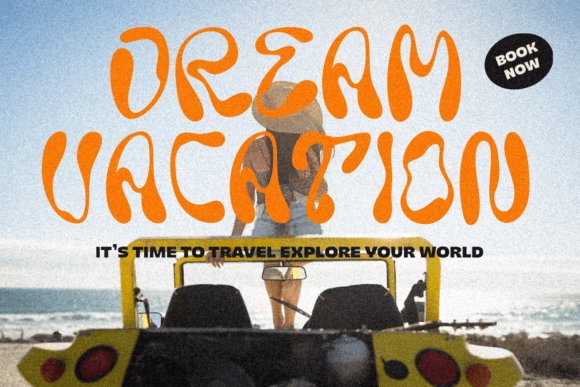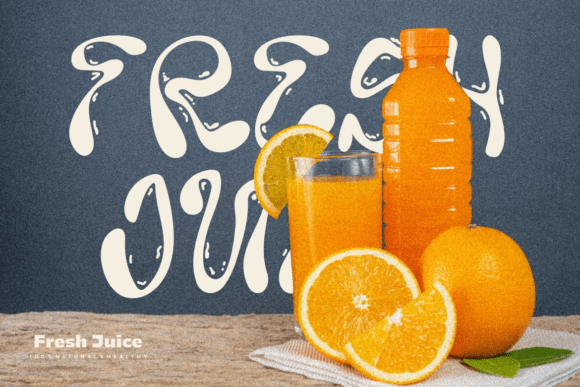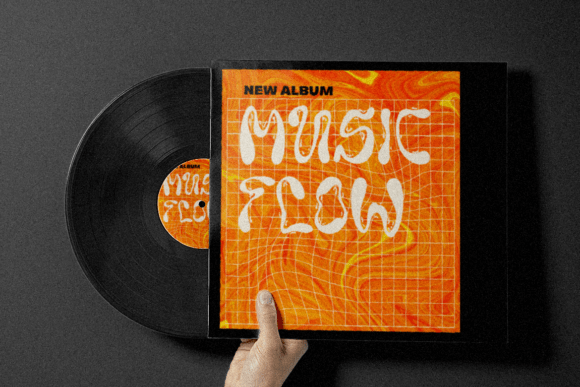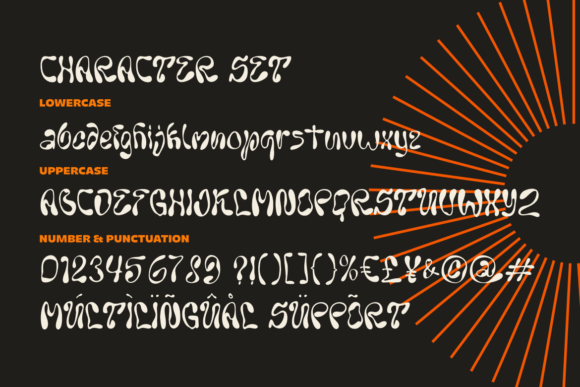
Introduction to Liquid Wave Font
Have you ever been working on a creative project, staring at a blank canvas, and suddenly, a spark of inspiration hits you? Maybe it’s a bold, eye-catching color combination or a striking font that sets the tone for your entire design. For many designers, that spark of inspiration is often found in the perfect font – one that captures the essence of their creative vision and communicates their message with impact. For those seeking a font that embodies movement, fluidity, and energy, the Liquid Wave Font is the perfect solution.
With its unique blend of retro-inspired style and modern Y2K vibe, the Liquid Wave Font is a valuable resource for designers looking to add a touch of bold personality to their work. Whether you’re crafting logos, posters, magazine covers, or book covers, this font excels at grabbing attention and leaving a lasting impression. Its high-quality design and versatility make it a must-have for any design project, and with its free download option, it’s an accessible resource for creatives of all levels.
Key Features of Liquid Wave Font
- Unique, hand-drawn design for a creative project, offering a high level of expressiveness.
- Perfect for designers looking for a high-quality, unique font to enhance their designs and add a touch of elegance.
Honest Review: Liquid Wave Font
I recently stumbled upon the Liquid Wave Font, and I must say it’s a great addition to any creative project. As a designer, I appreciate high-quality design resources that can elevate the visual appeal of a project.
- High quality: The font is crisp and clear, making it perfect for various design applications.
- Limited font styles: The font comes in a single style, which might limit its versatility in certain design projects.
Overall, the Liquid Wave Font is a great resource for designers who need a high-quality font for small projects or personal use. While it has some limitations, its unique design and transparent background make it a valuable addition to any design arsenal.
Use the font in conjunction with a transparent background for a unique design effect. Experiment with different font sizes and colors to create a visually appealing design.
The Liquid Wave Font is perfect for creative projects, such as infographics, social media graphics, or presentations. Its high-quality design makes it a great resource for designers and non-designers alike.
Comparison to Liquid Wave Font: AquaFlow Font has a more subtle, gentle feel compared to Liquid Wave Font’s bold and expressive style.